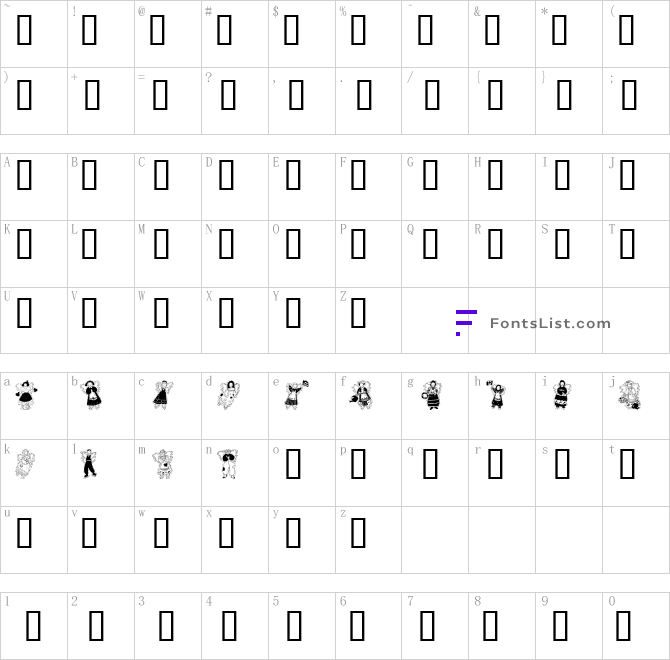
- Font Name:Angels around the world
Angels-around-the-world.ttf is a very beautiful artistic font, Angels-around-the-world.ttf is widely used in the design and printing of various books and pictures,Angels-around-the-world.ttf has a strong visual impact,Angels-around-the-world.ttf is a commonly used font in newspapers, magazines and books, and is used in posters, e-commerce Poster design, store design, logo design, font design and other fields.Angels-around-the-world.